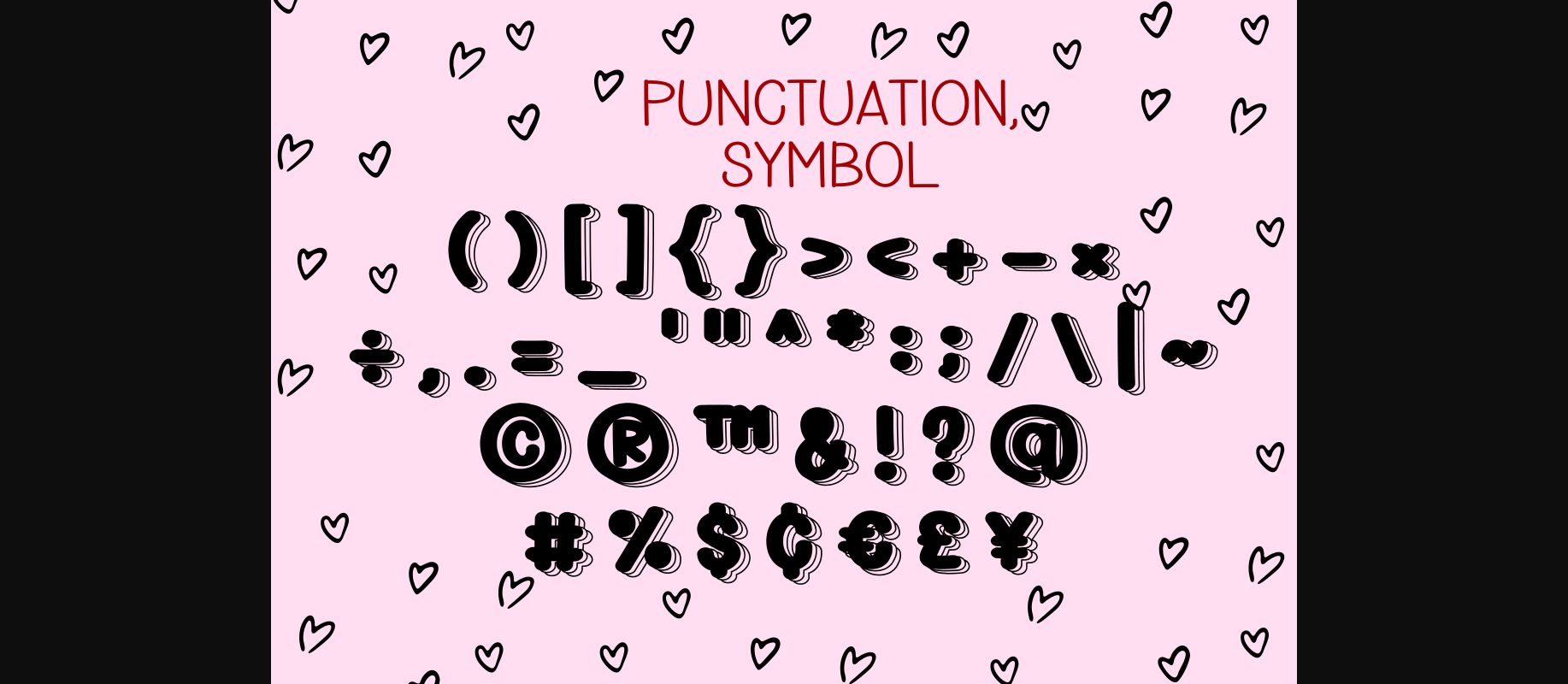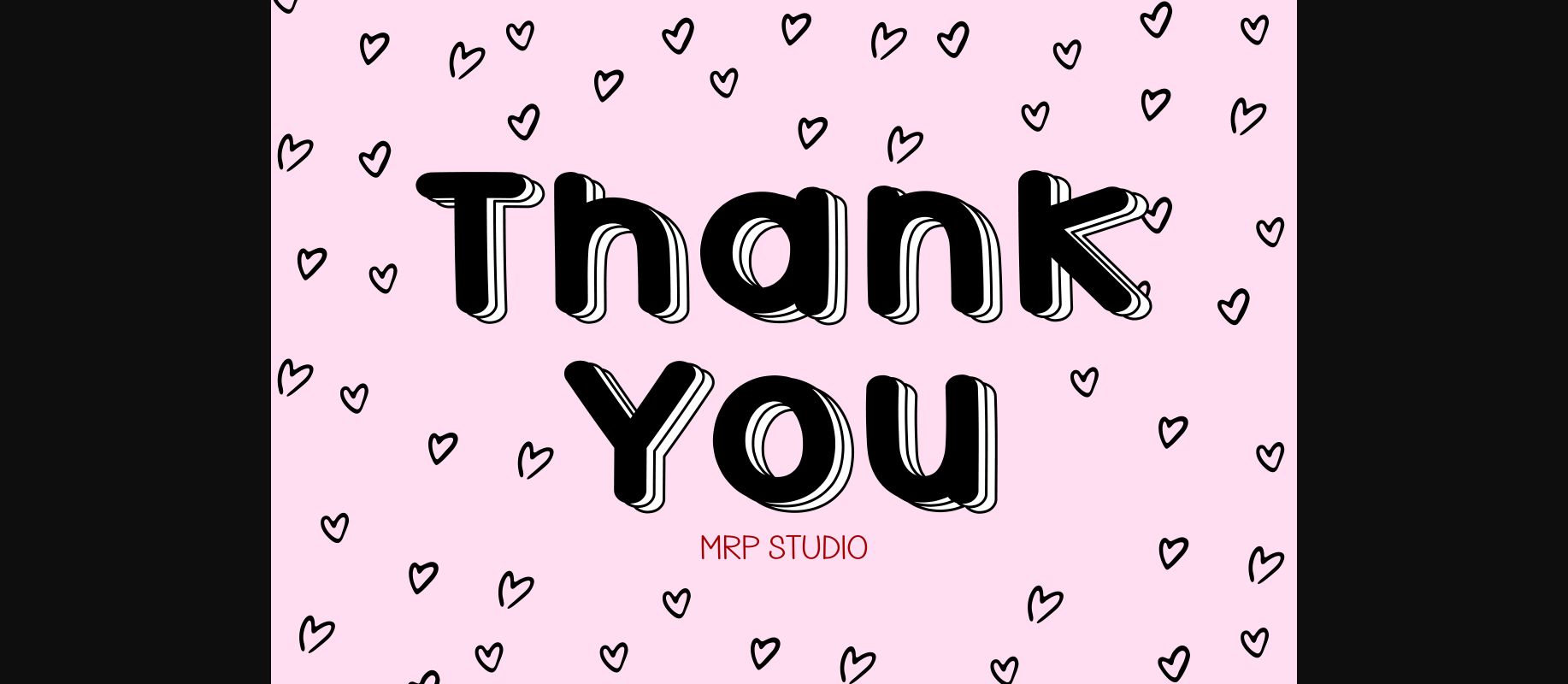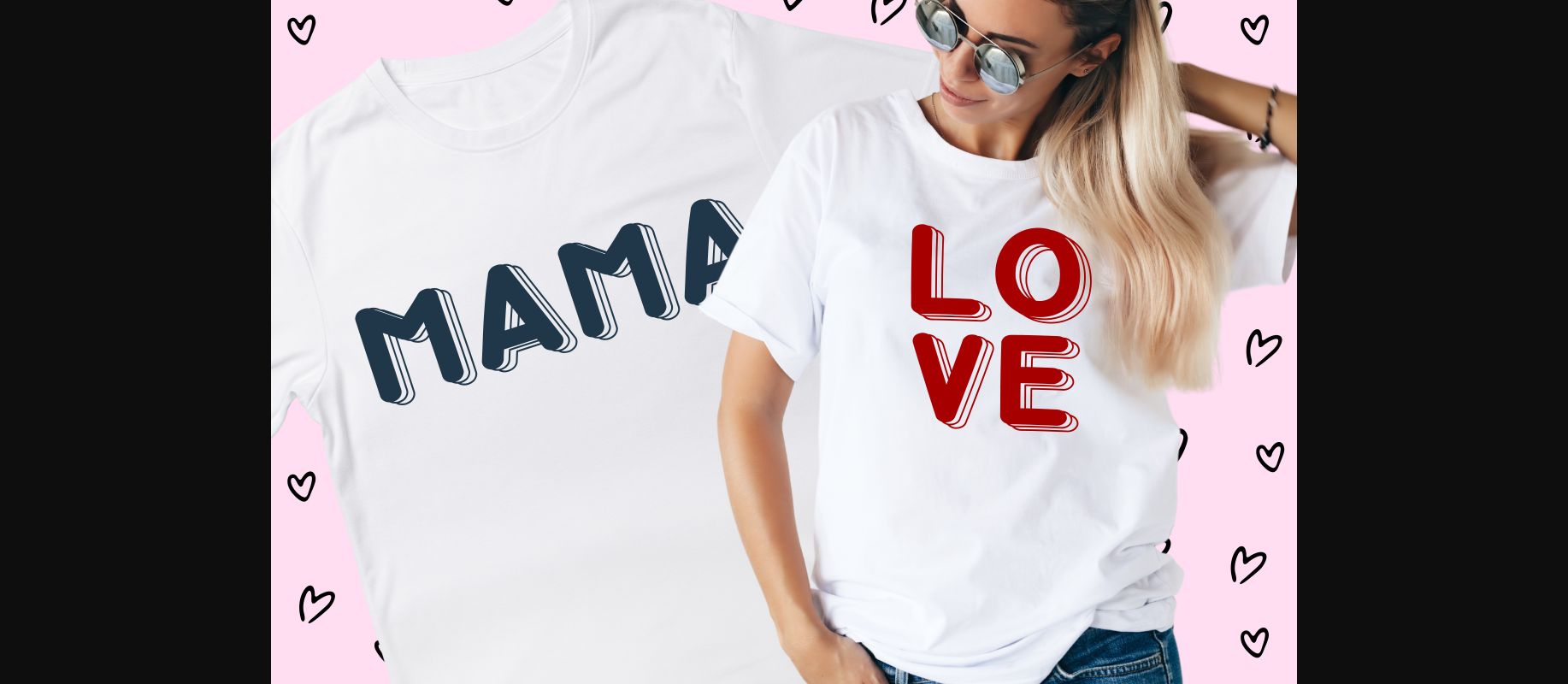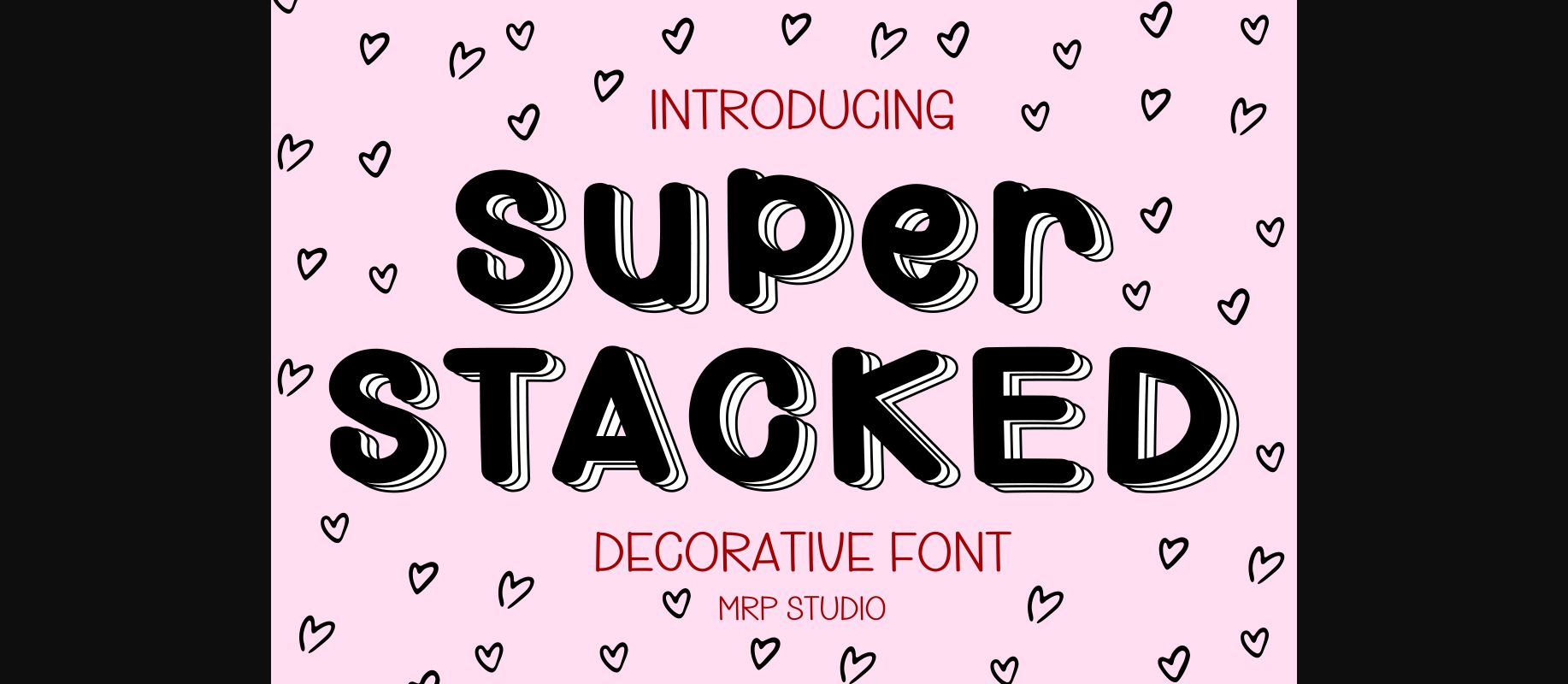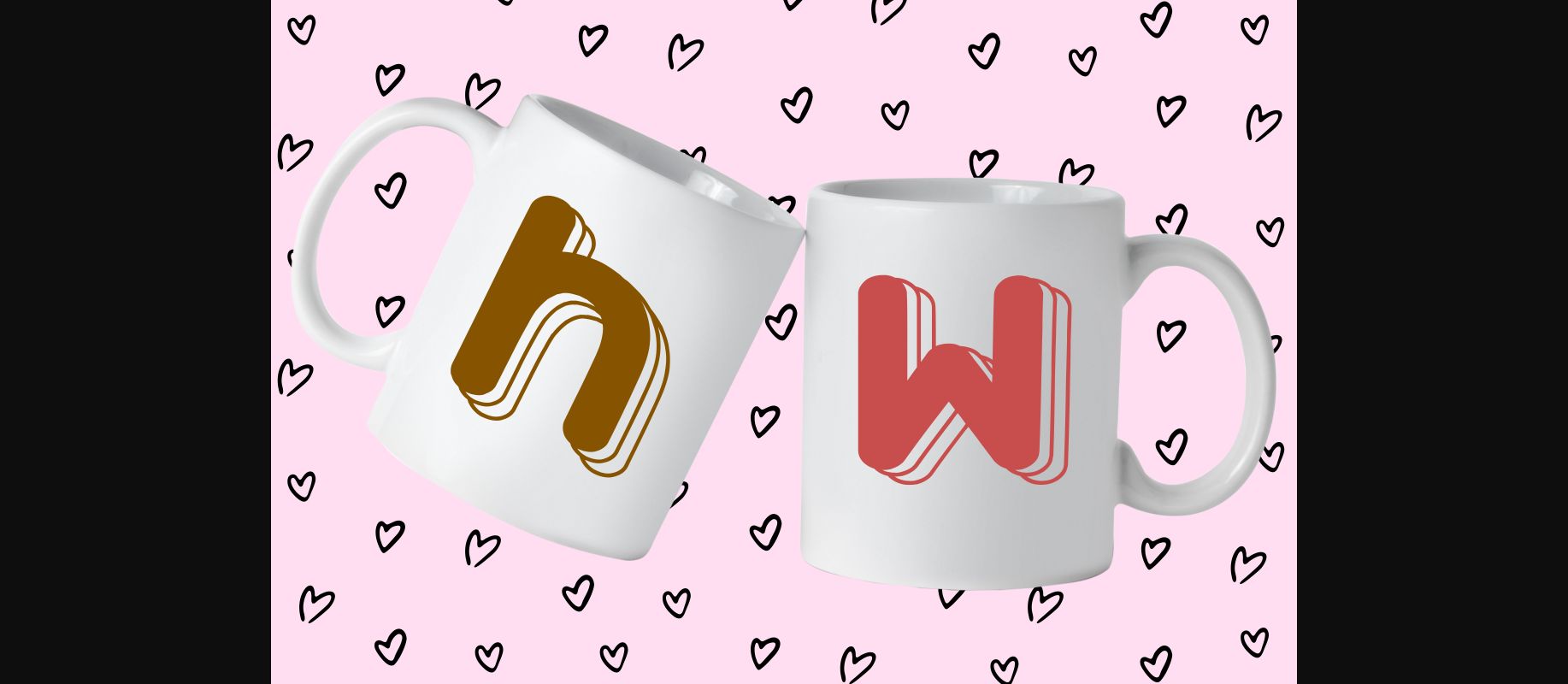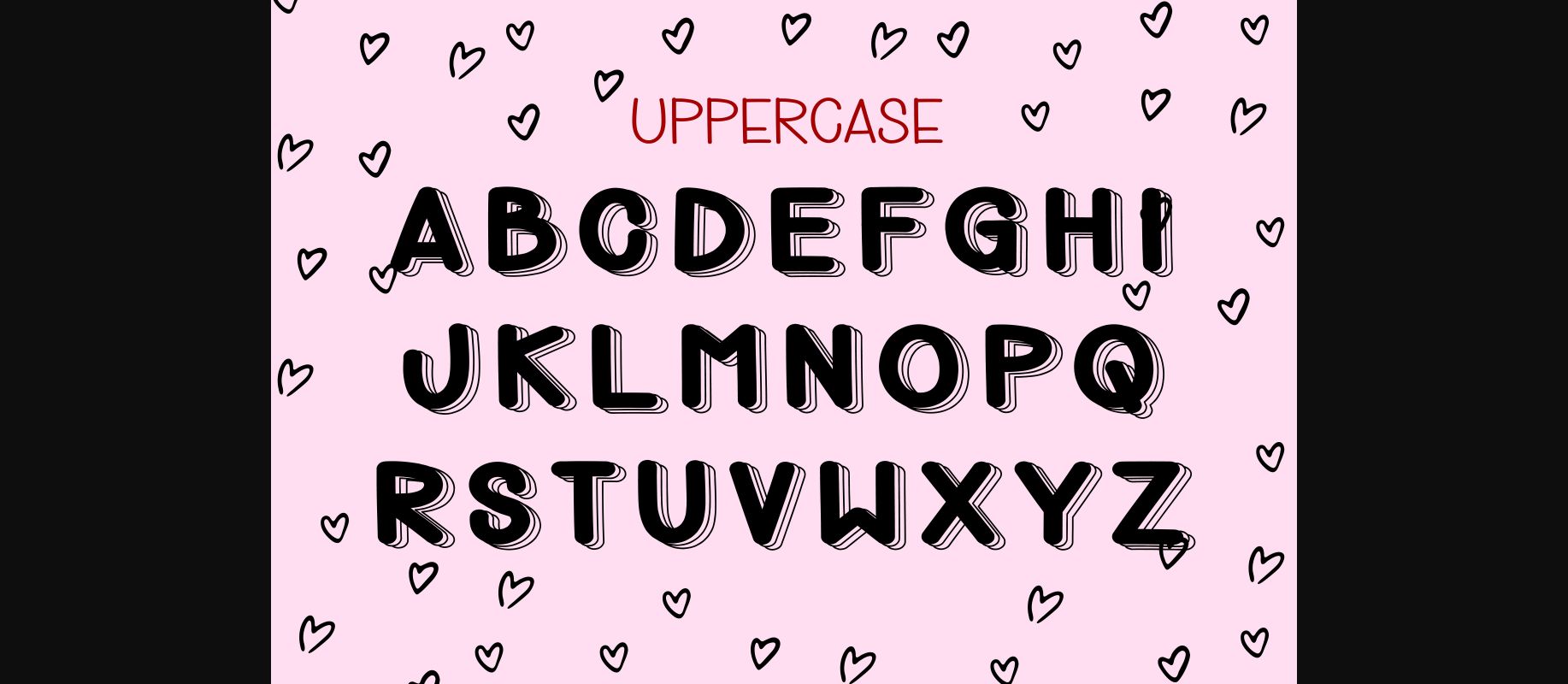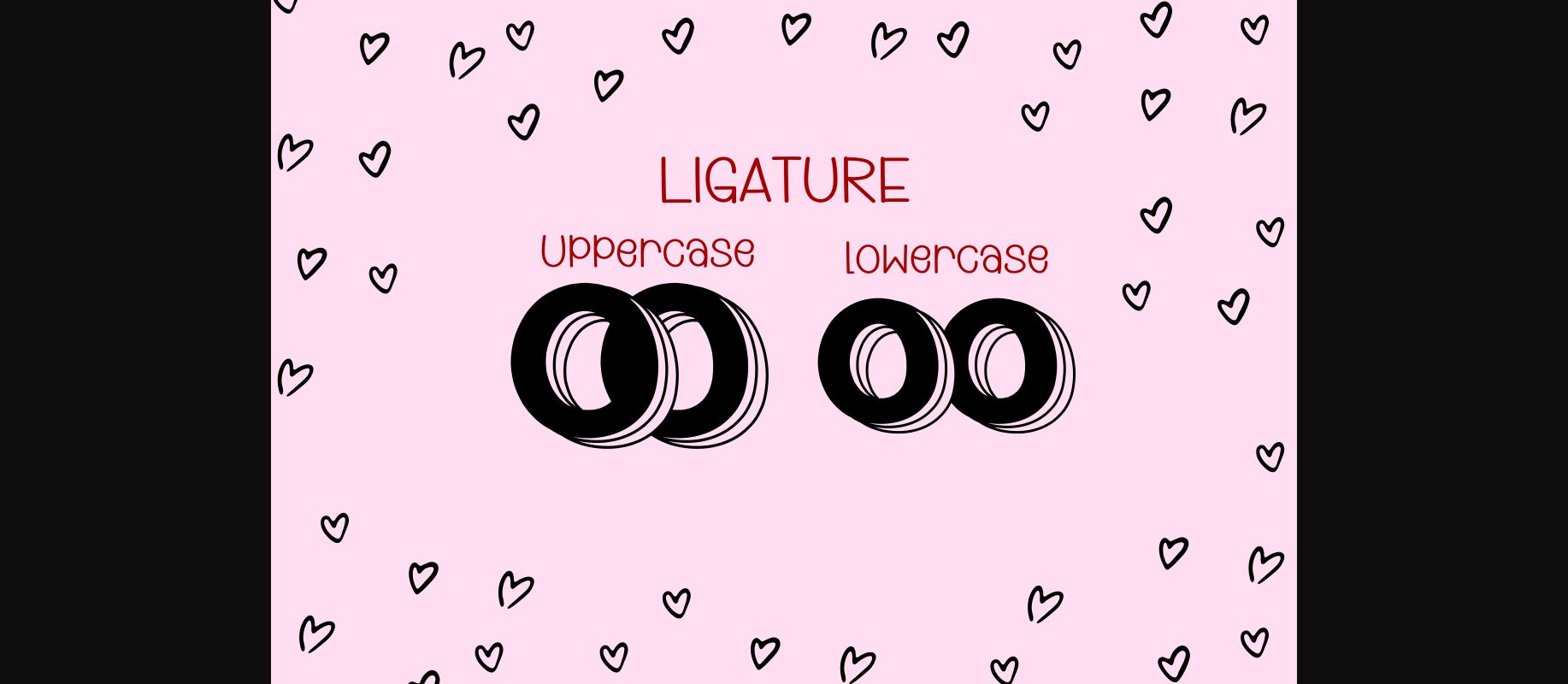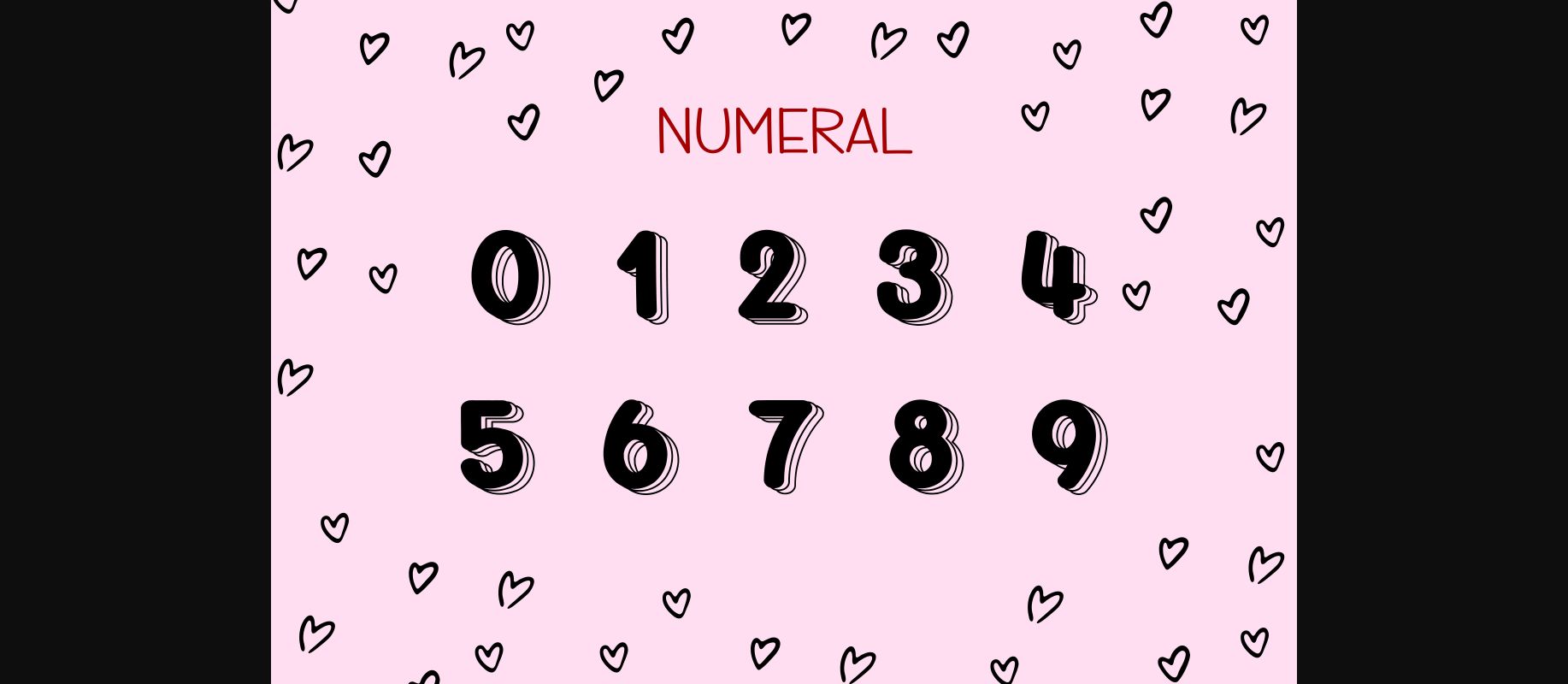
Super Stacked Font
About Super Stacked Font
Super Stacked is designed in a cute and adorable decorative font style. It would be awesome for your lovely Project and also your child-related project such as back to school, sports, birthday party decoration, and much more to any topic which needs bright and fun touch. Let’s try it and add it to your creative ideas and notice how it makes them stand out!